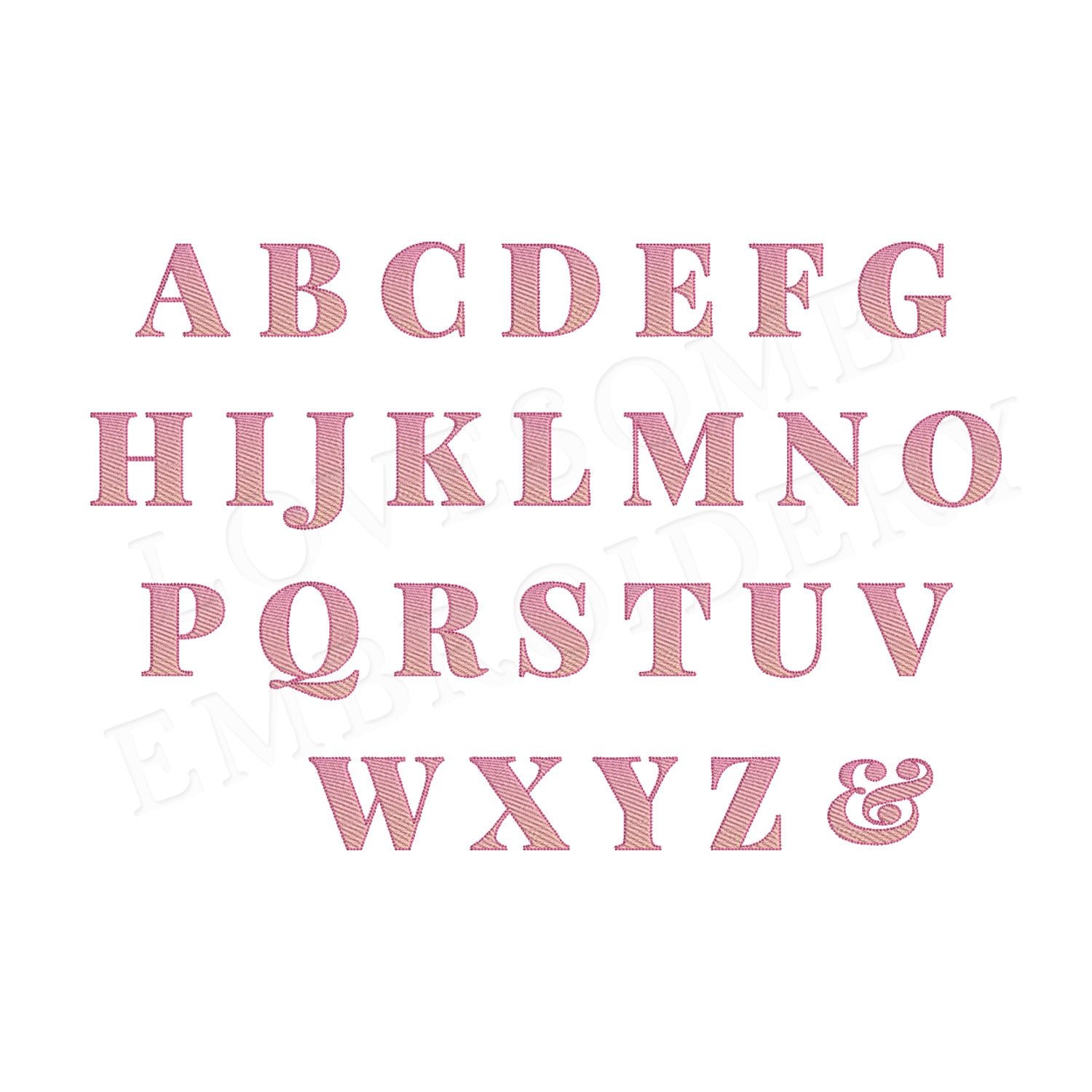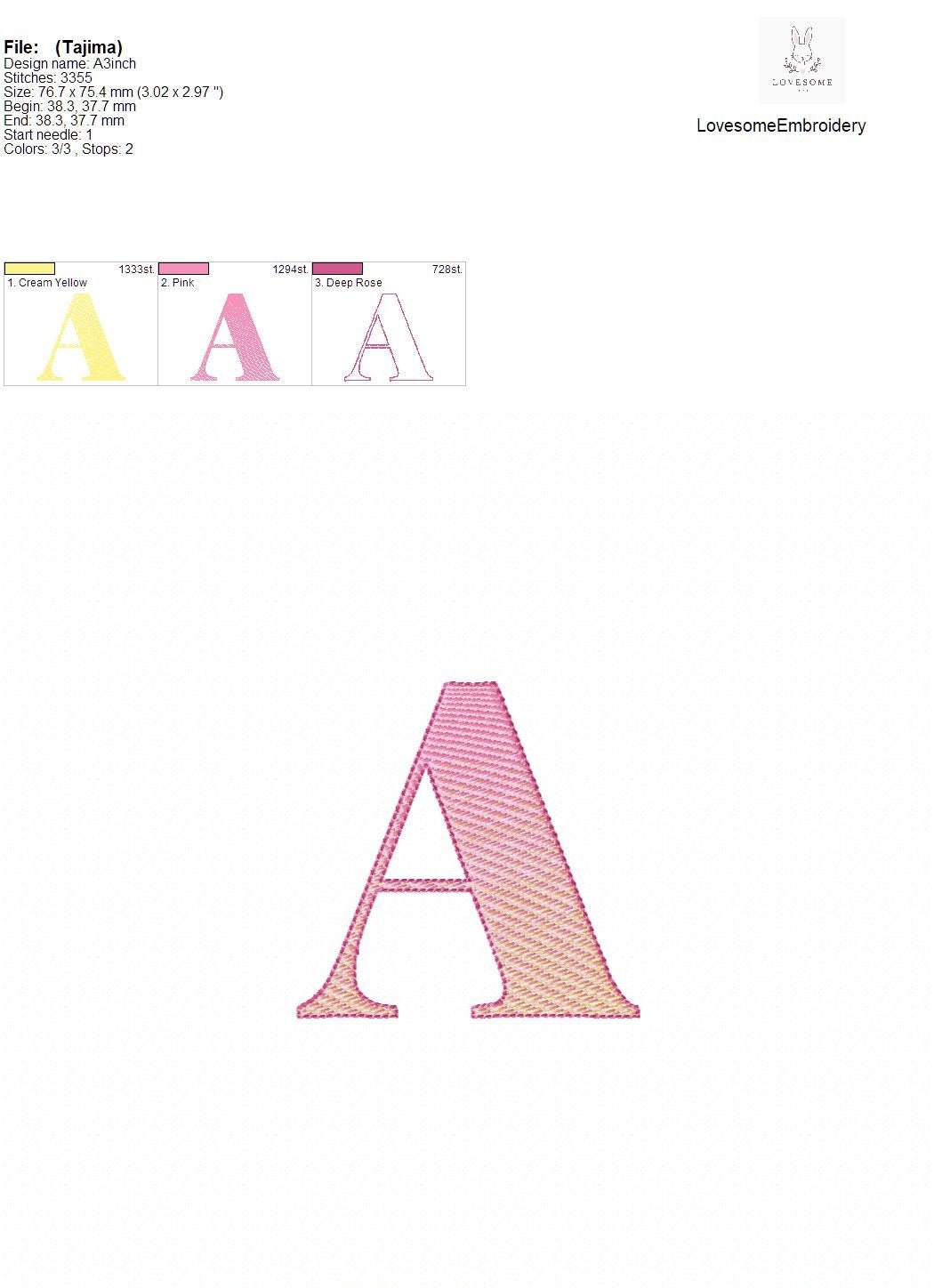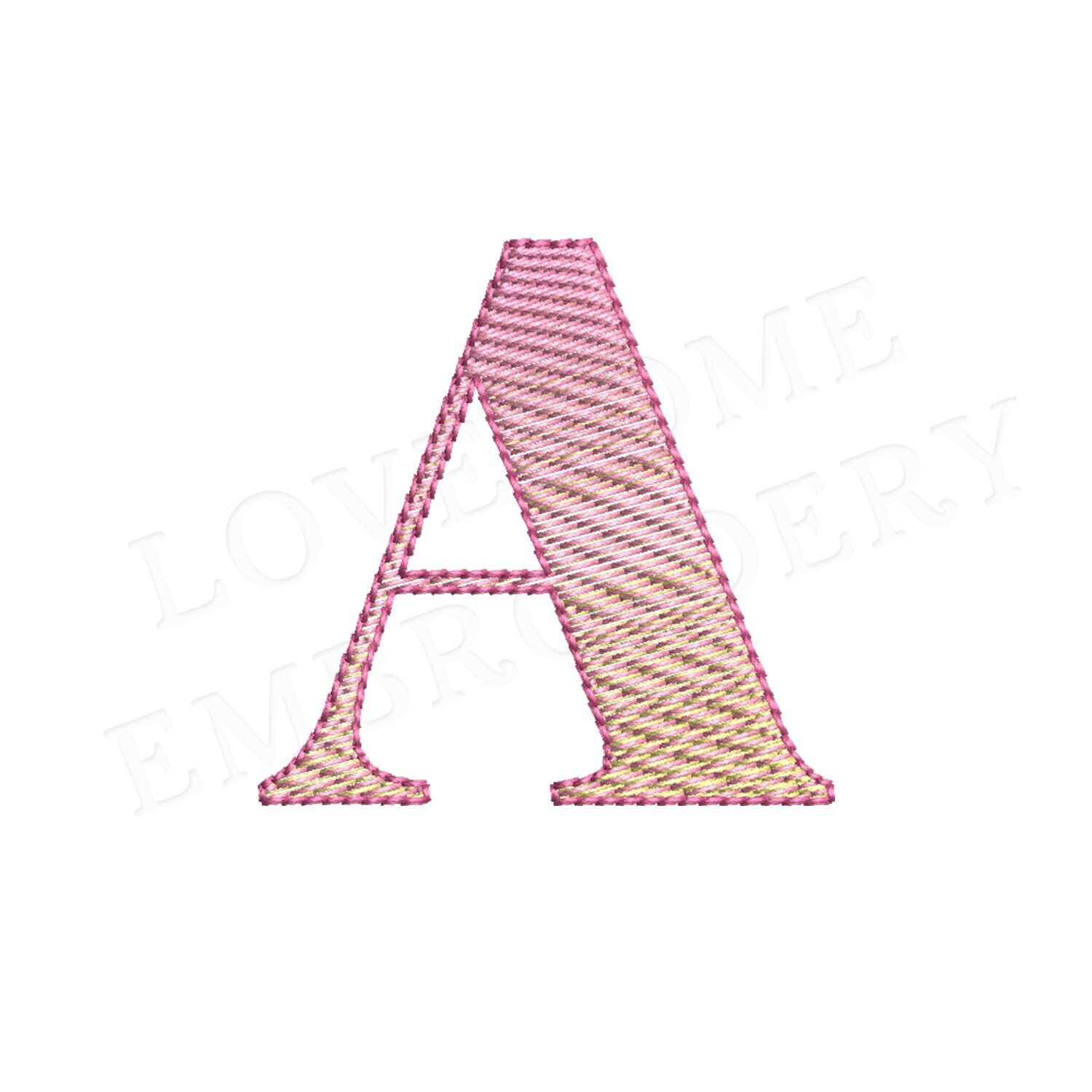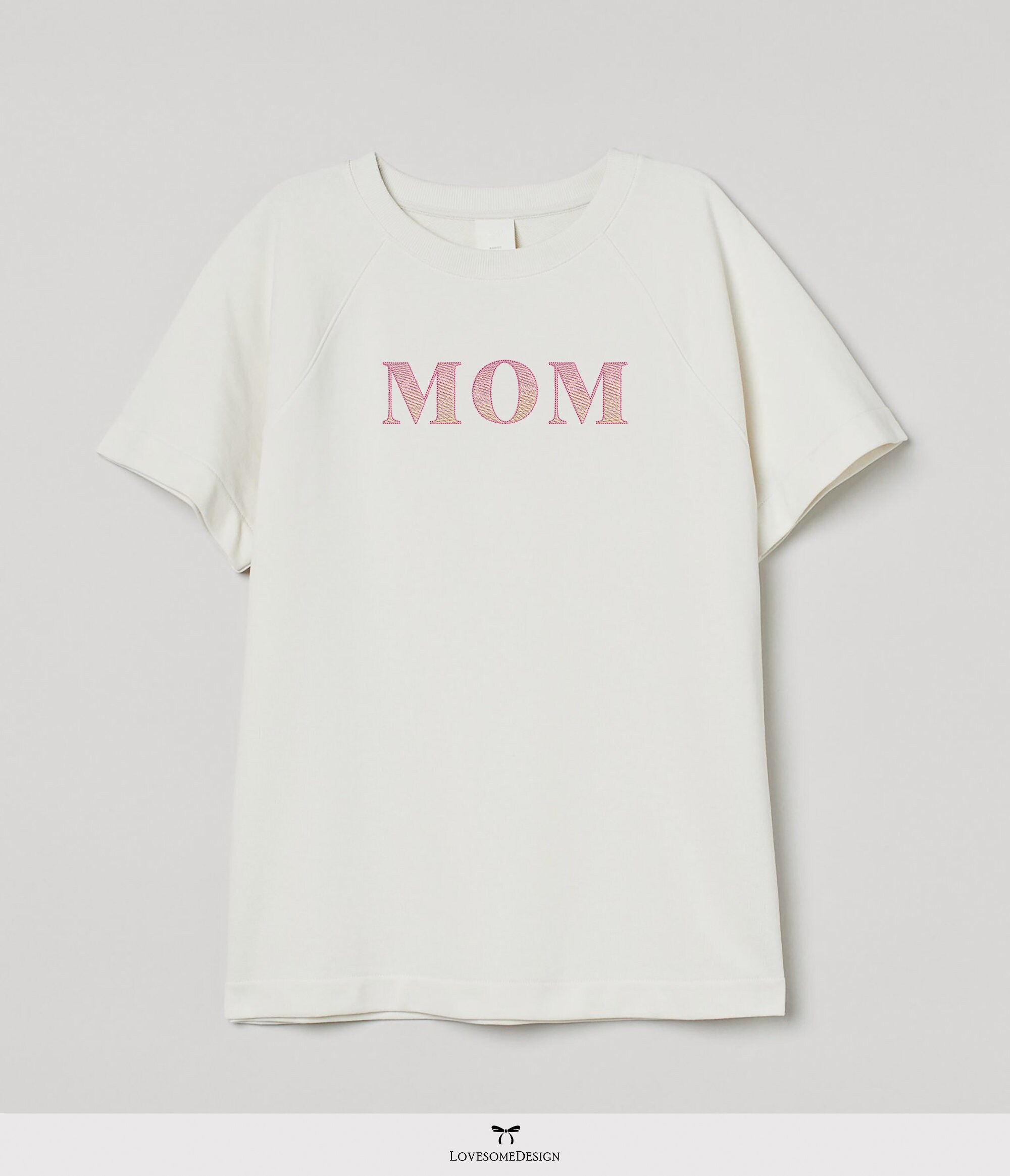
Ombre Playfair 3inch Monogram Font A-Z Machine Embroidery Font Digital Download | Lovesome Design
This listing features a machine embroidery font set which includes embroidery files of 26 uppercase monogram letters and and ampersand in 3inch size. (For the whole set, pls see the listing images.)
These letters are stitched using regular solid color threads to have a nice ombre effect, pls note; NO SPECIAL THREAD NEEDED.